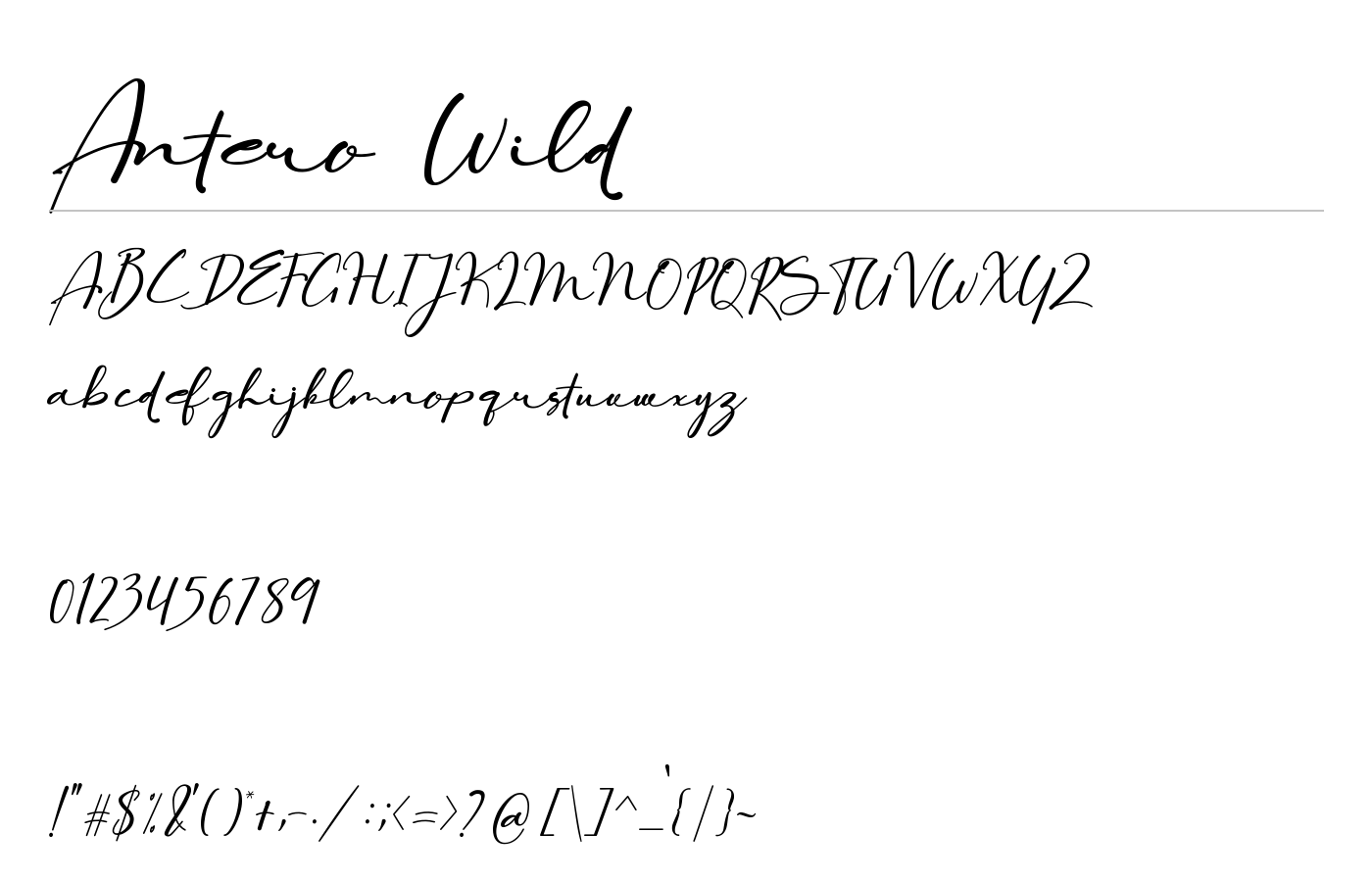
Antero Wild is a delicate, handwritten script font that conveys a sense of elegance and natural flow through its light, airy strokes and smooth, slightly irregular lines. Its fine, calligraphic style with slender, slightly whimsical letterforms makes it ideal for creative, personal branding, invitations, and artistic projects seeking a refined yet approachable feel. This font works best in headlines or accents where a touch of charm and individuality is desired.
Antero Wild Font
About Antero Wild Font